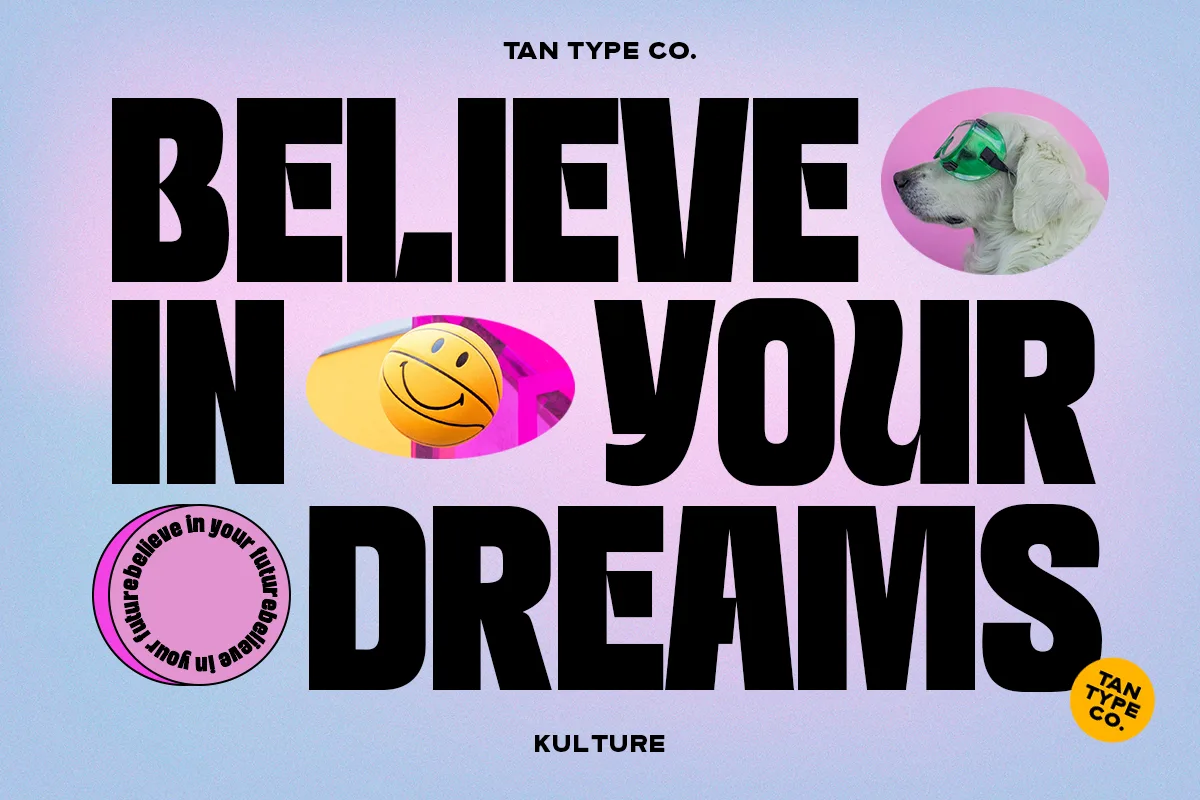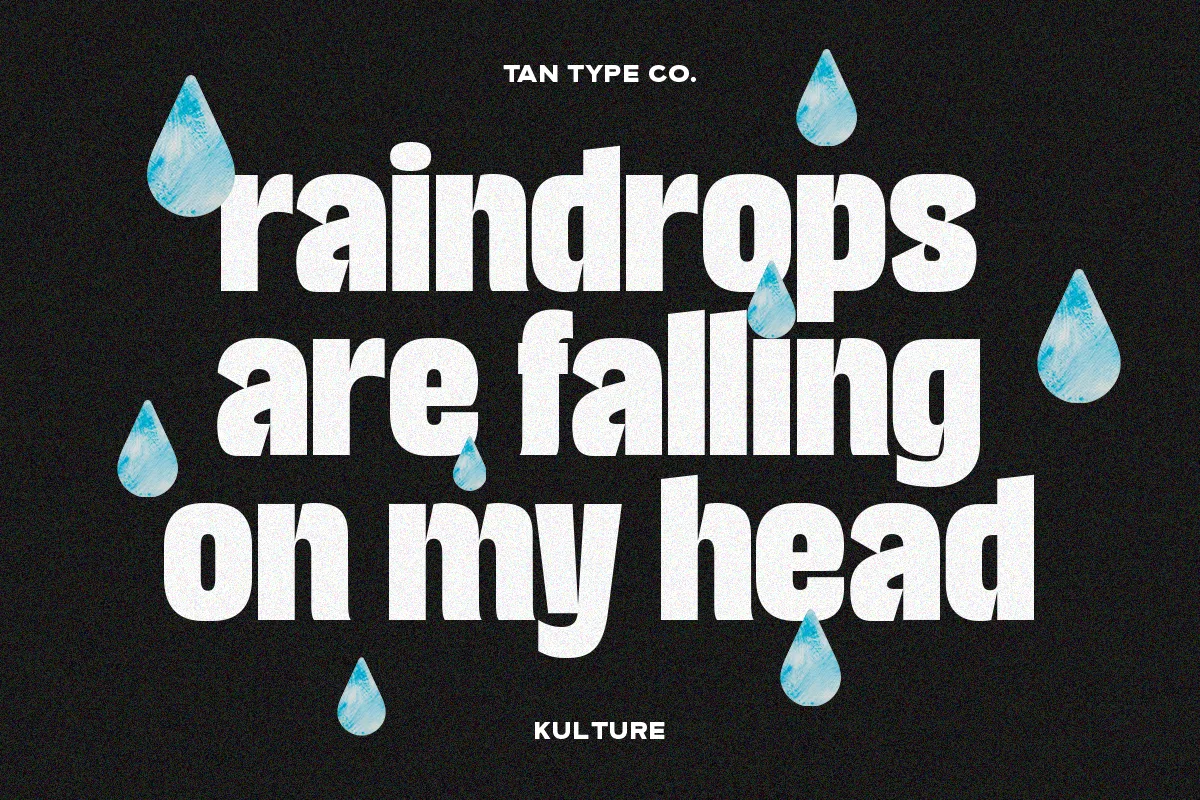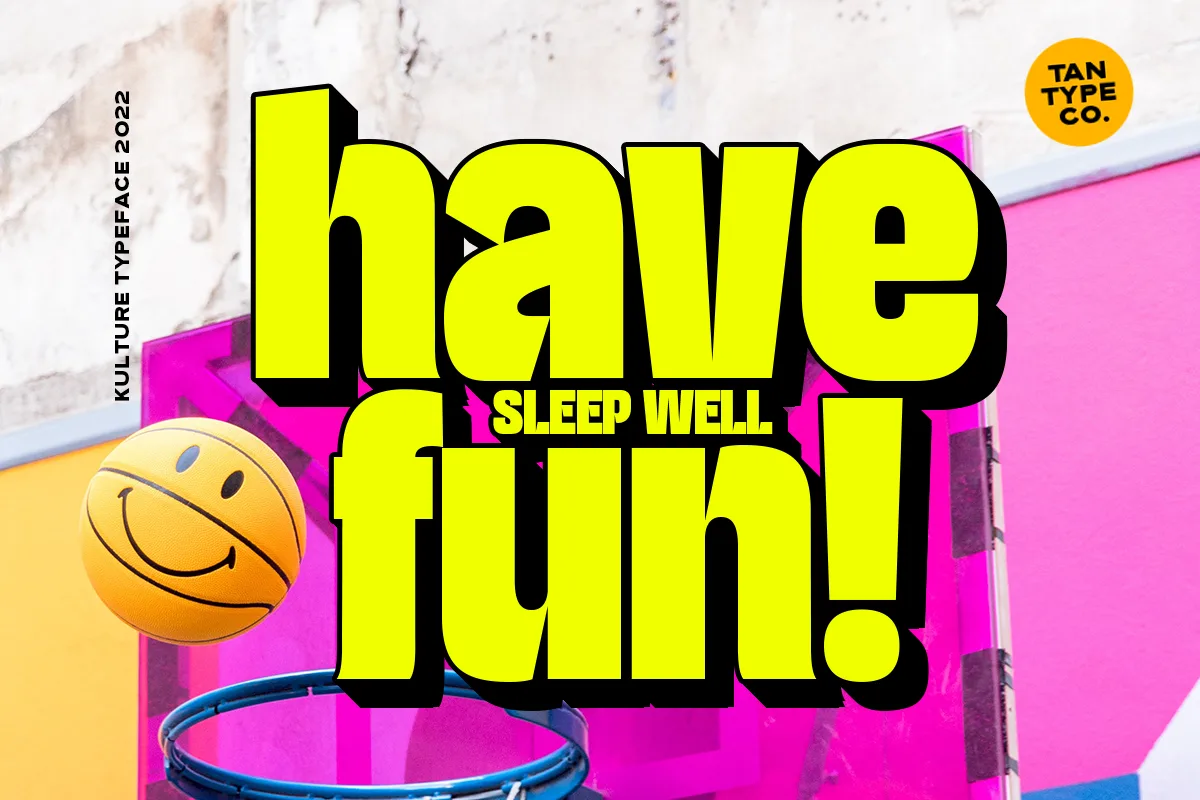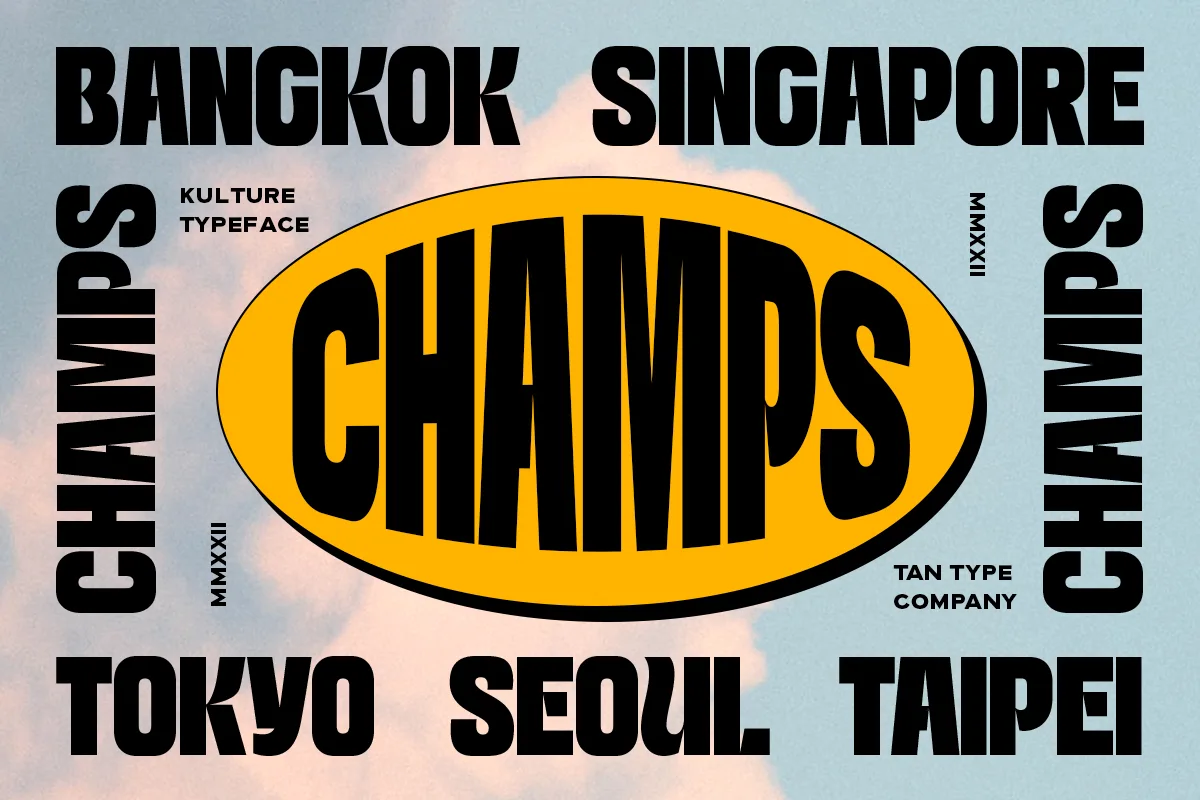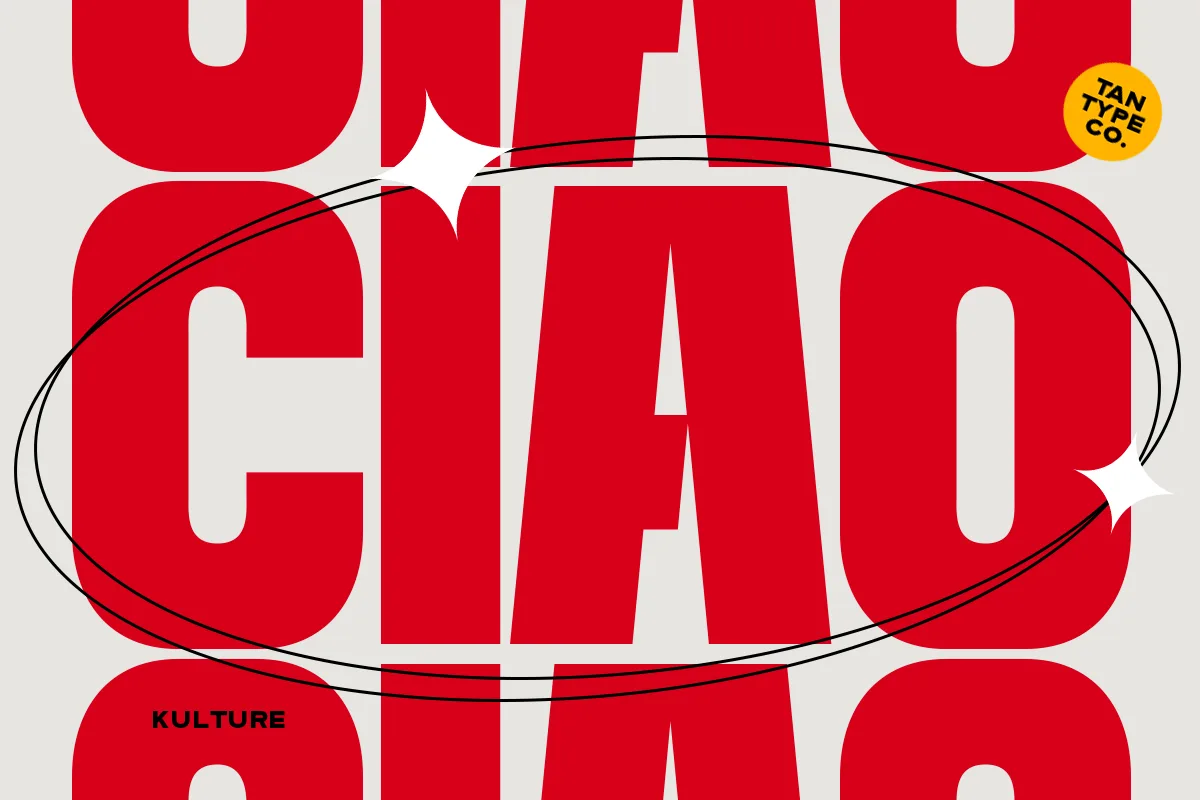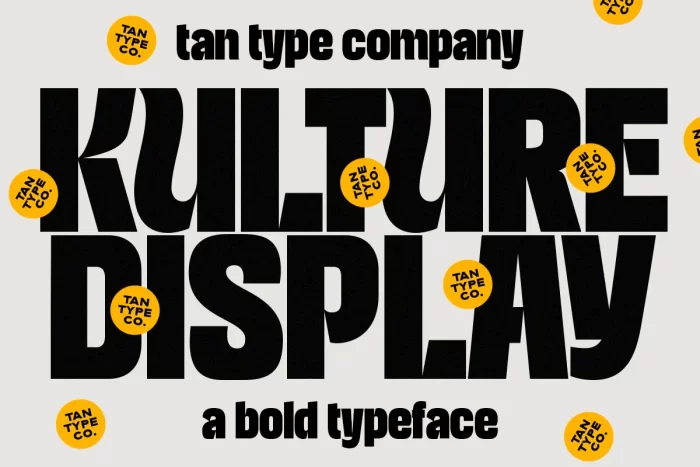
Tan Kulture Font
TAN – KULTURE is a bold display type. Simple in a good way and efficient with tight kernings making it a nice choice if you want a retro look in your design.
Tan Kulture font preview — sample text
Tan Kulture font alphabet, numbers and glyphs
Tan Kulture font style preview
Tan Kulture font used in a design mockup
Tan Kulture font detail preview